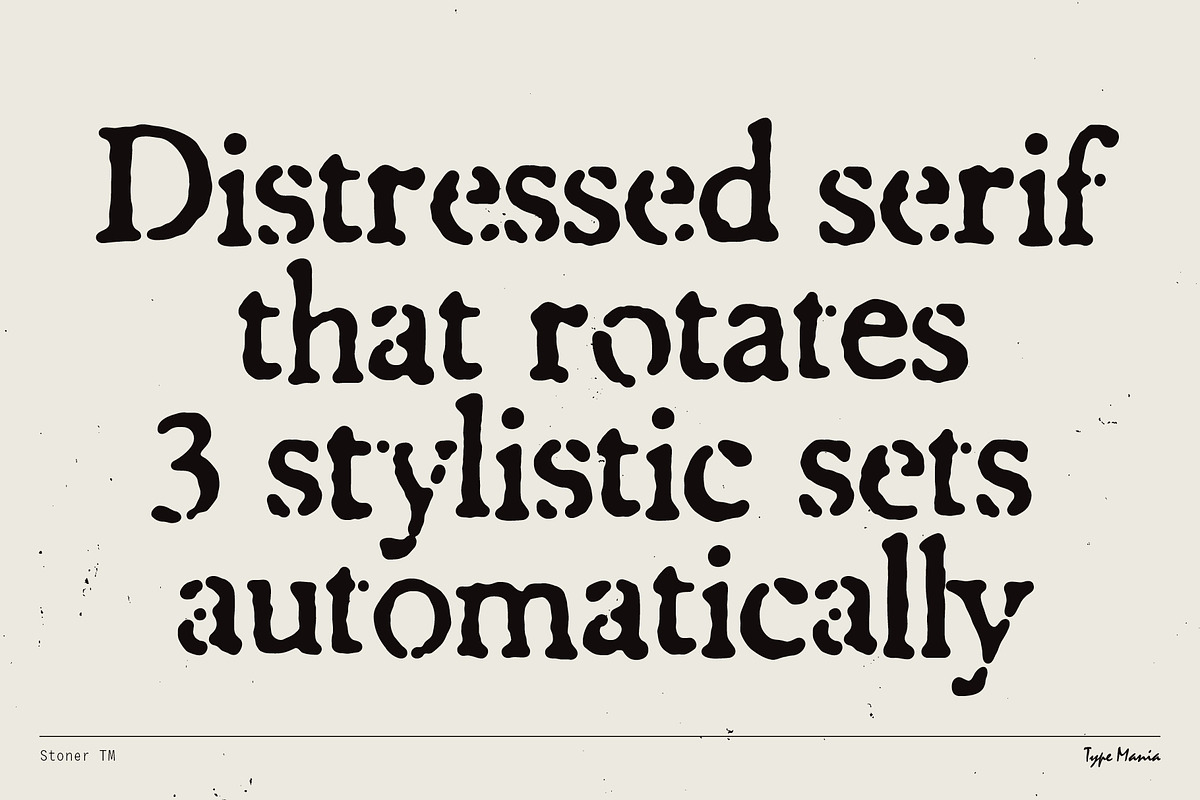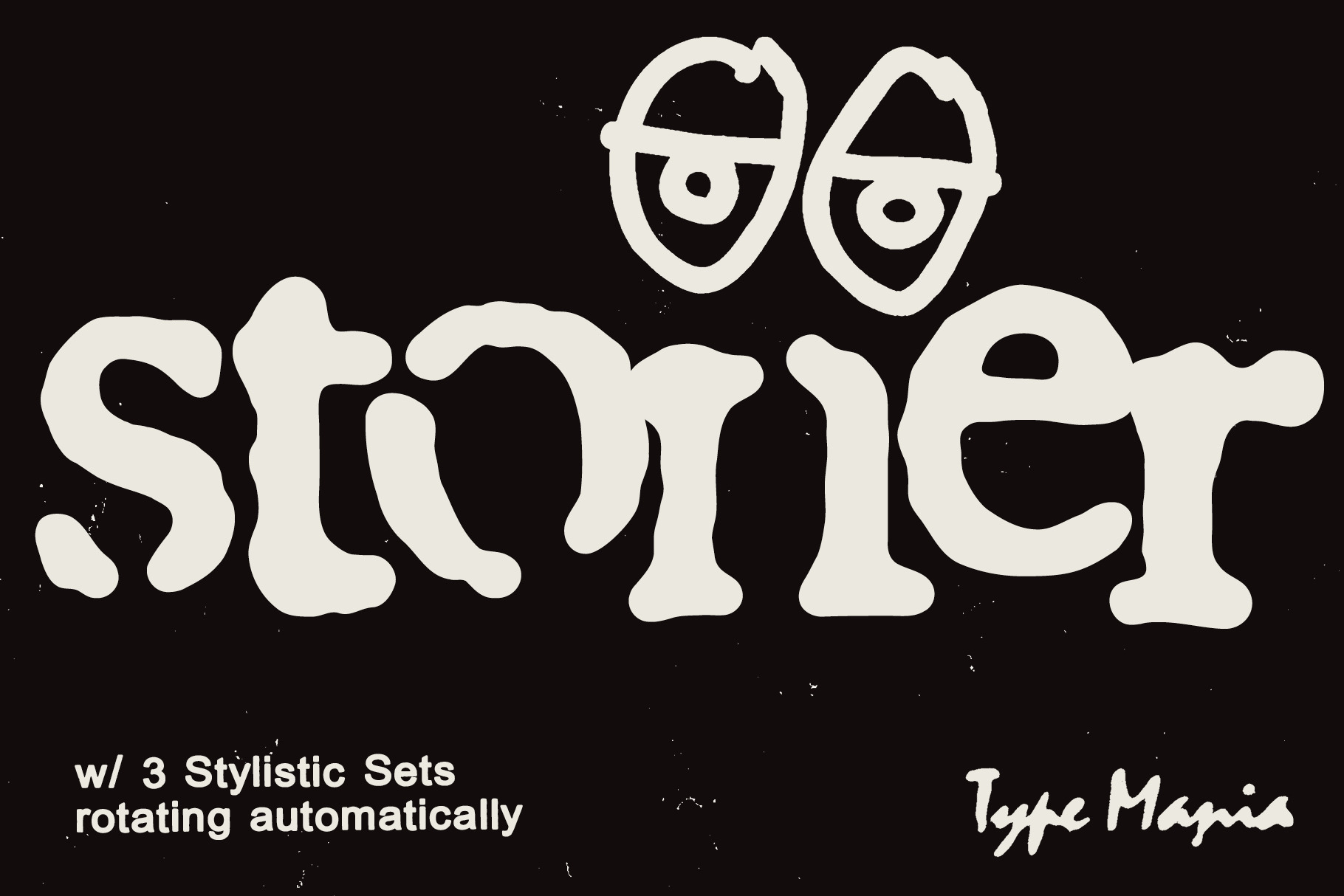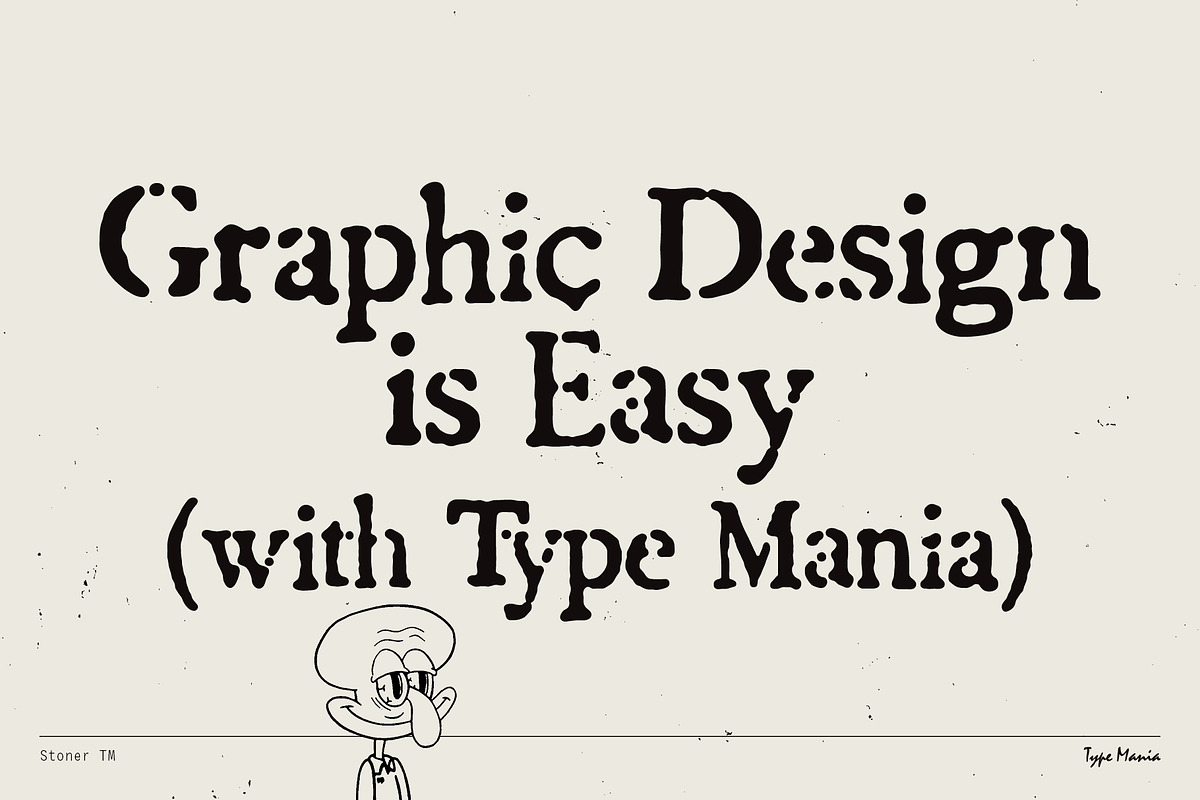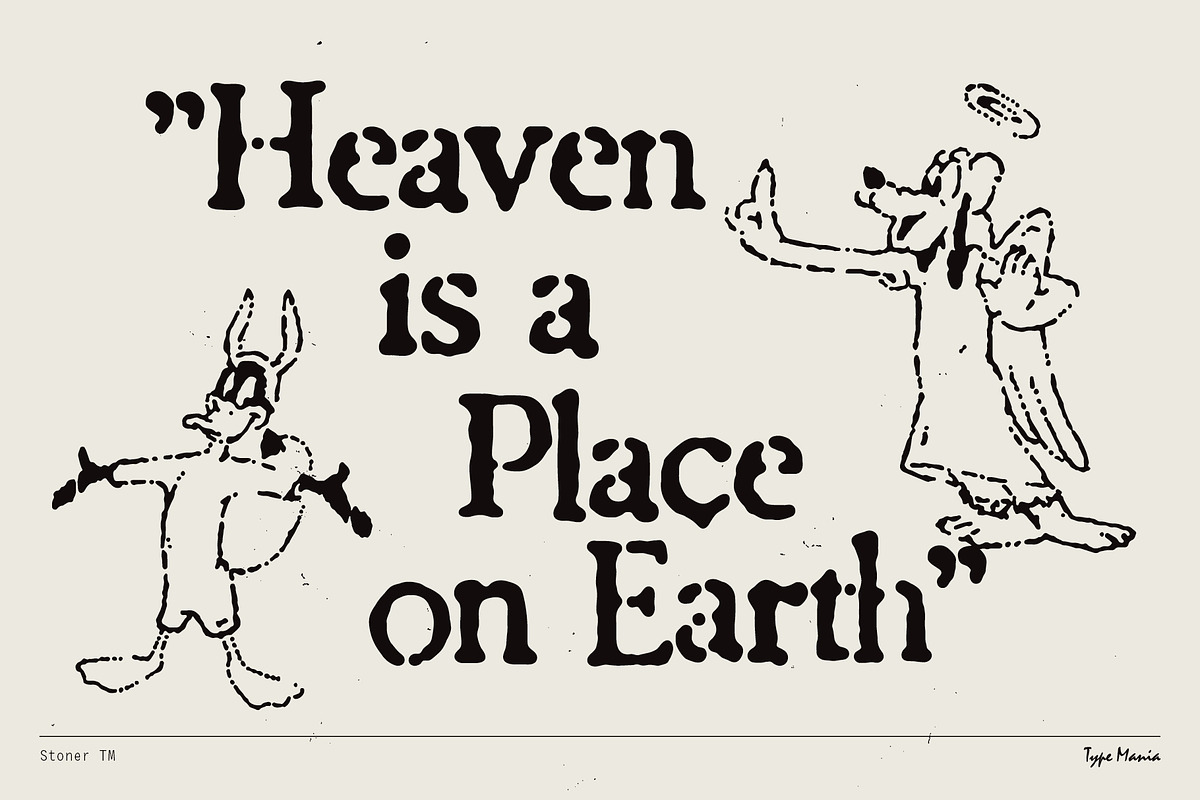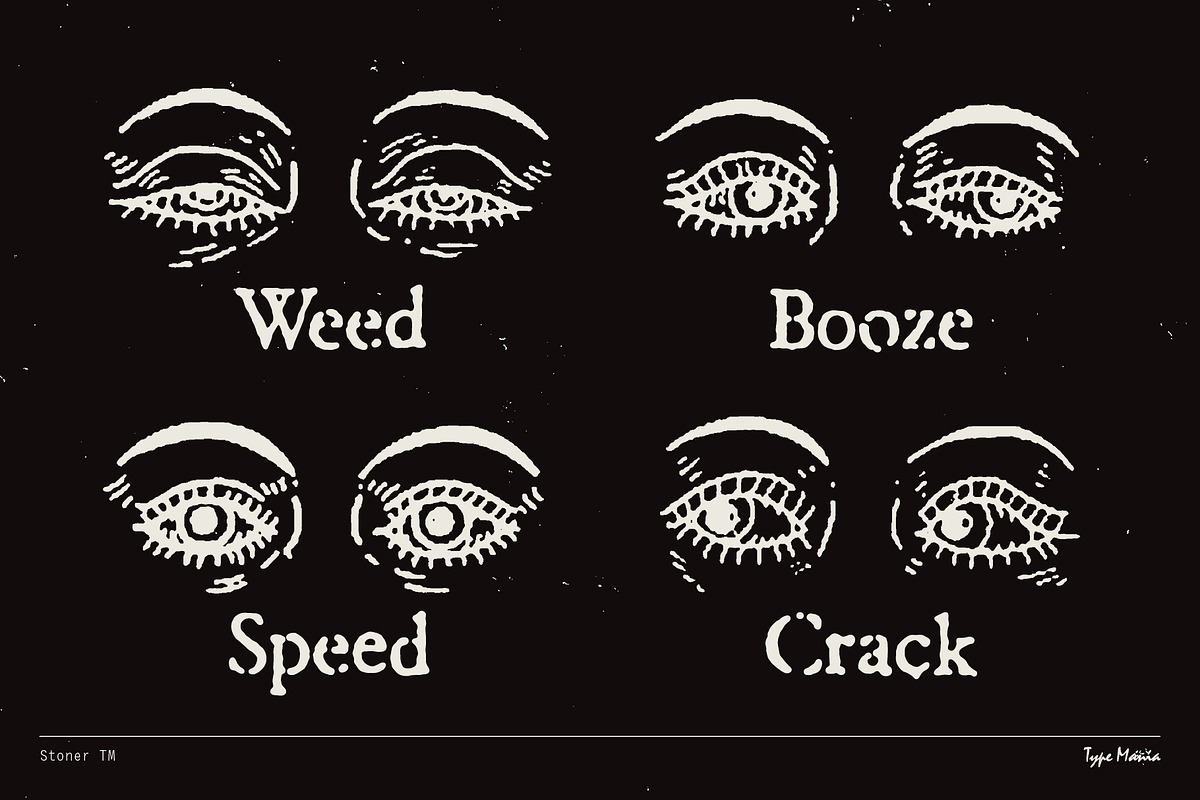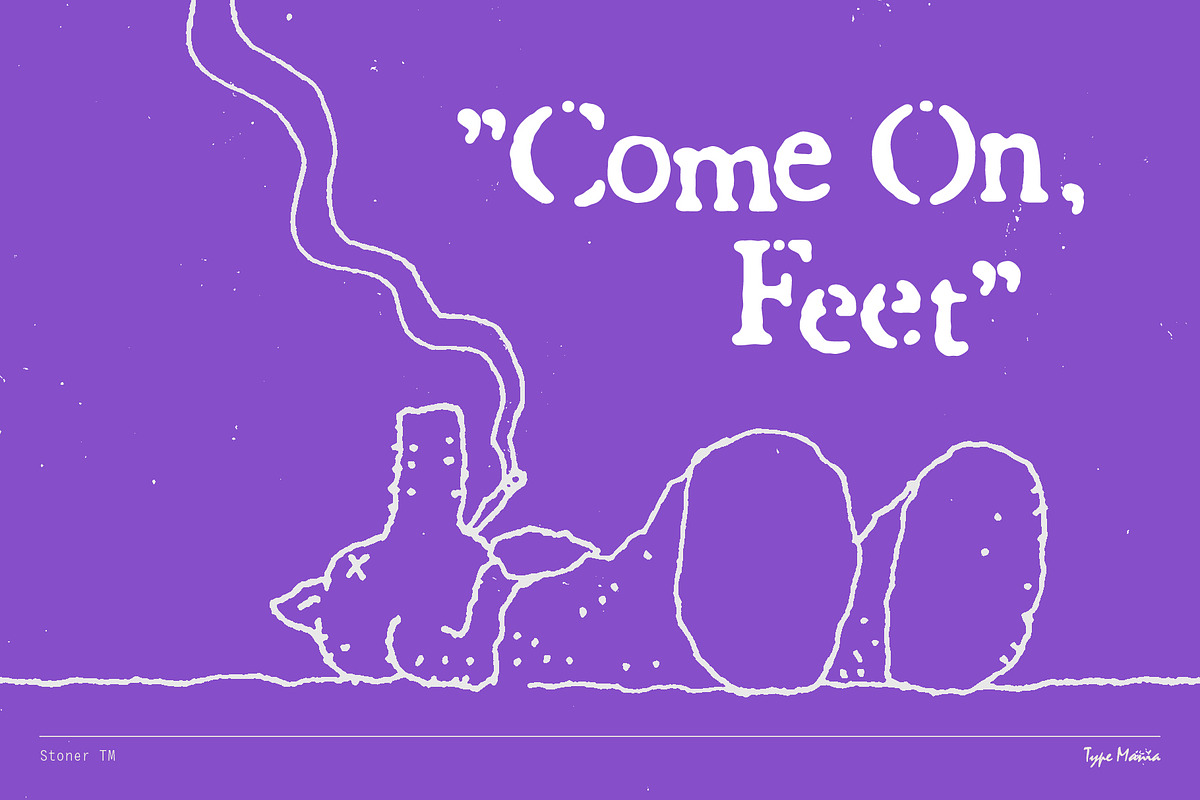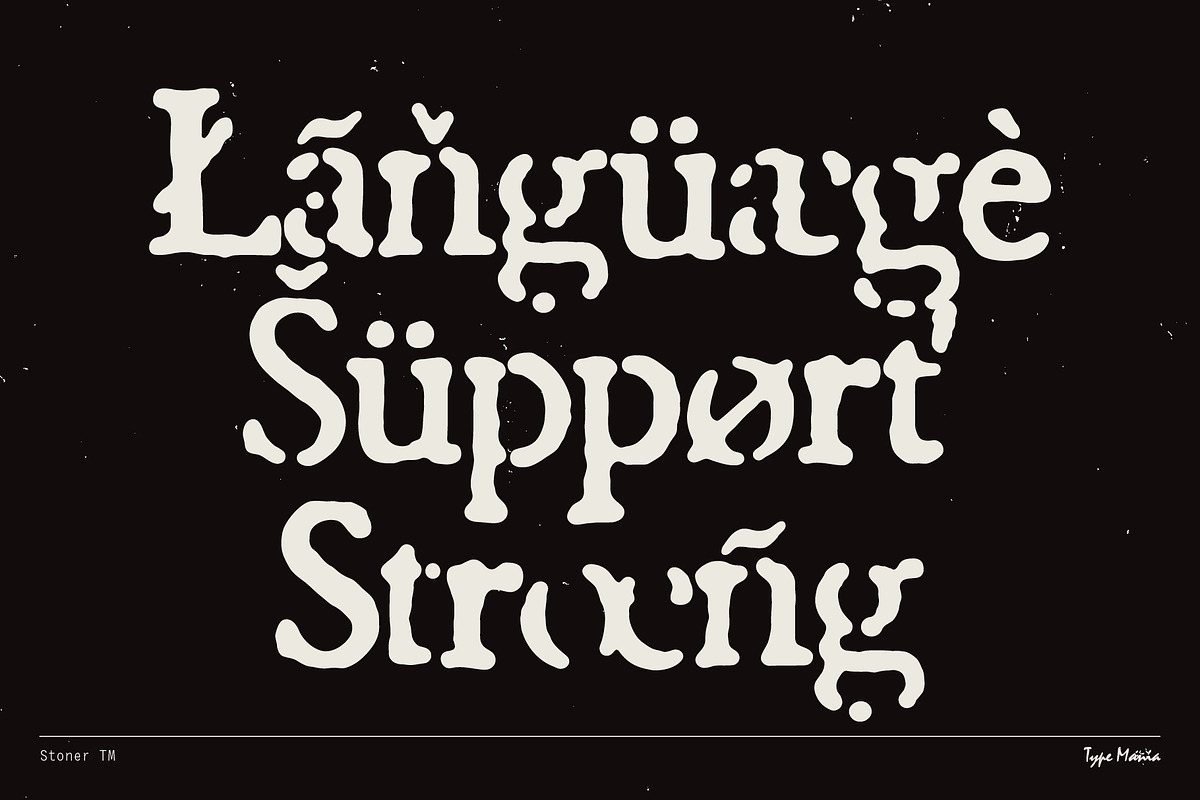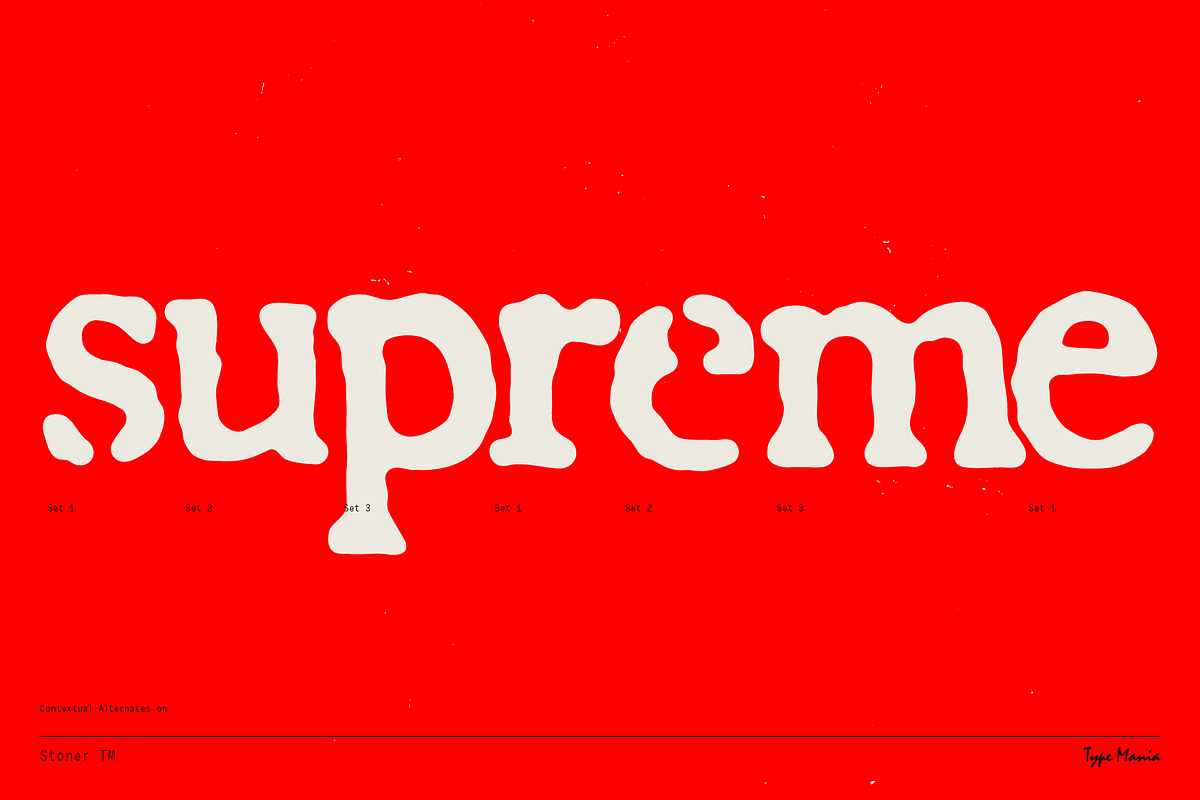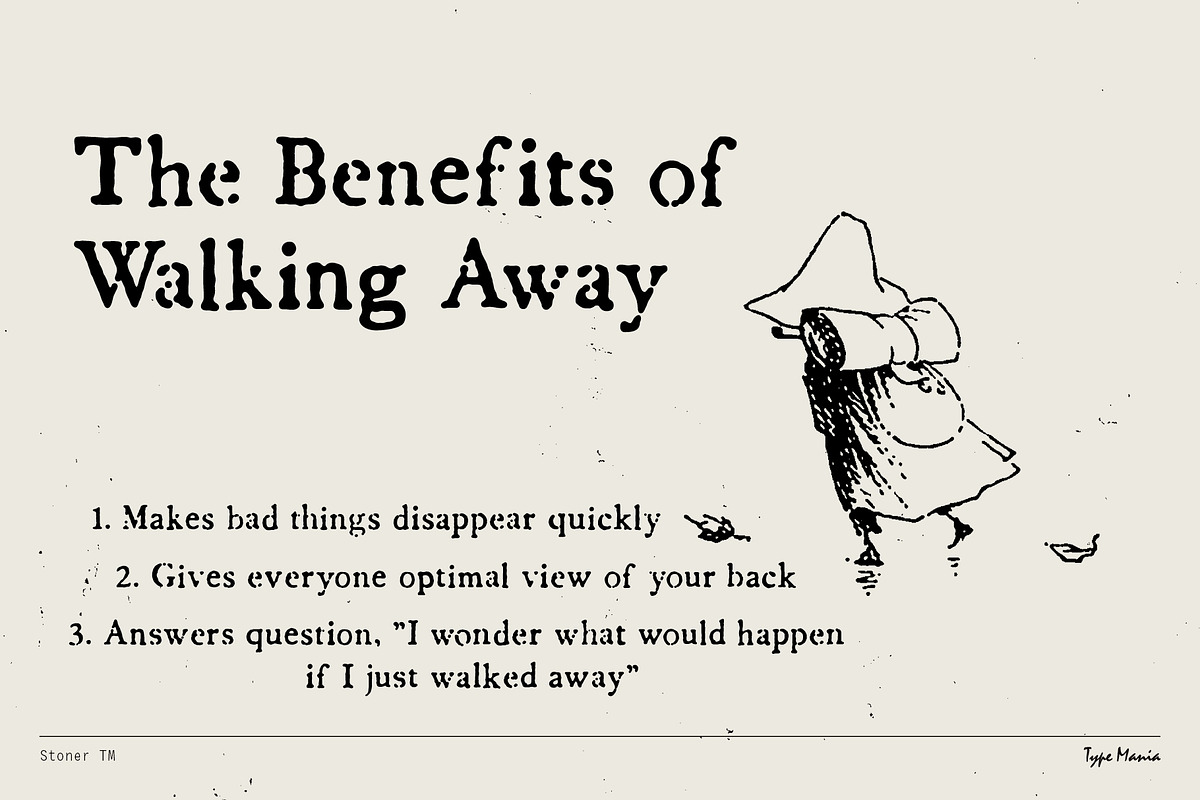
Stoner TM – Distressed Dynamic Font
Stoner TM is a textured serif with subtly eroded forms for that worn-out feel—delivering realness without sacrificing legibility. It has automatically rotating stylistic sets: as you type, alternate letterforms cycle in to break repetition. No manual OpenType toggling required.
OpenType features
- 3 stylistic sets
- The font is programmed to automatically shift between the stylistic sets